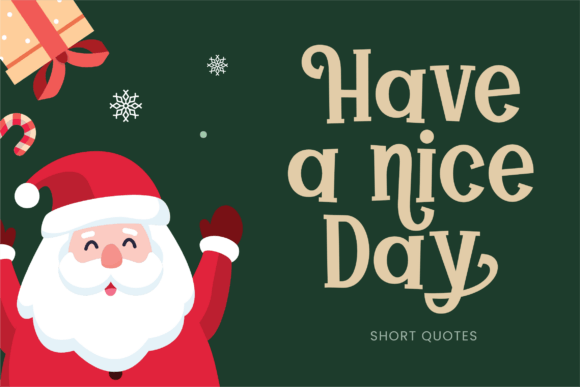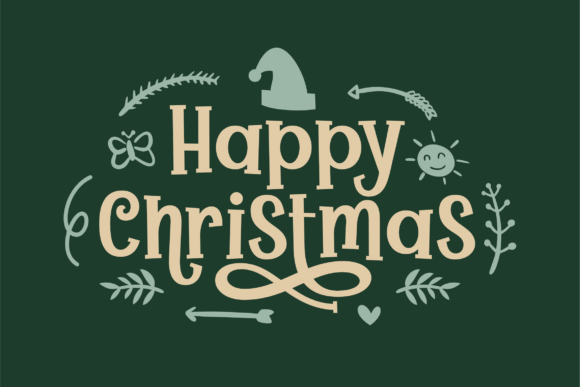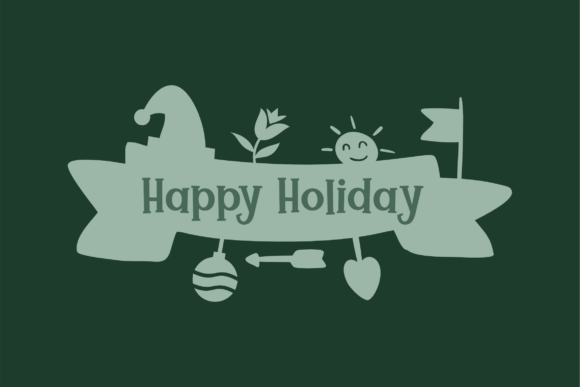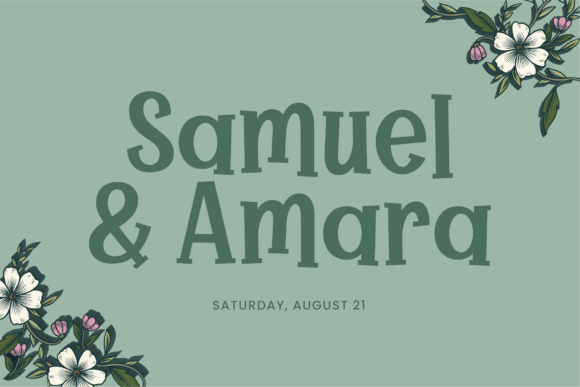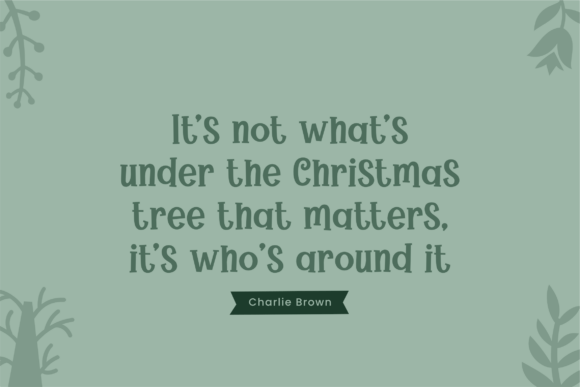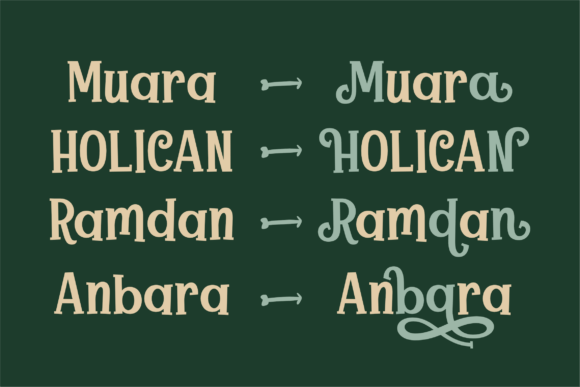
Dreamglow Christmas Font: The Ultimate Holiday Display Typeface
The holiday season is upon us, and with it comes the need for festive and fun designs that capture the magic of Christmas. If you’re a designer or crafter looking for the perfect font to bring your holiday projects to life, look no further than Dreamglow Christmas. This whimsical and festive display typeface is designed to add a touch of warmth and joy to your Christmas-themed designs, making it the perfect addition to your holiday toolkit.
A Festive Font with a Retro Charm
Dreamglow Christmas is a playful and charming font that radiates warmth and joy. Its soft serifs and playful curves give it a retro charm that’s reminiscent of classic holiday designs from years past. The font’s unique character and personality make it perfect for a wide range of Christmas-themed projects, from greeting cards and holiday banners to festive packaging and more.
Perfect for Christmas Projects
Whether you’re designing a holiday greeting card, a festive banner, or a package for a Christmas gift, Dreamglow Christmas is the perfect font for the job. Its cozy, handcrafted feel makes it perfect for adding a personal touch to your designs, and its playful curves and soft serifs give it a fun and festive vibe that’s sure to get you in the holiday spirit.
Delightful Dingbats to Complete Your Design
One of the best things about Dreamglow Christmas is the inclusion of delightful dingbats to complete your creative vision. These fun and festive icons can be used to add a touch of whimsy and personality to your designs, making them truly one-of-a-kind. From snowflakes and holly leaves to Christmas trees and stockings, the dingbats included with Dreamglow Christmas have everything you need to create a festive and fun design.
Key Features of Dreamglow Christmas
- Whimsical and festive design: Dreamglow Christmas is a playful and charming font that’s perfect for adding a touch of warmth and joy to your holiday designs.
- Soft serifs and playful curves: The font’s unique character and personality make it perfect for a wide range of Christmas-themed projects.
- Retro charm: Dreamglow Christmas has a retro charm that’s reminiscent of classic holiday designs from years past.
- Delightful dingbats: The font includes a range of fun and festive icons to complete your creative vision.
- Cozy, handcrafted feel: Dreamglow Christmas has a cozy, handcrafted feel that’s perfect for adding a personal touch to your designs.
Tips for Using Dreamglow Christmas
Here are a few tips for using Dreamglow Christmas in your holiday designs:
- Use it for headlines and titles: Dreamglow Christmas is perfect for headlines and titles, where its playful curves and soft serifs can really shine.
- Add a personal touch: Use Dreamglow Christmas to add a personal touch to your designs, whether it’s a holiday greeting card or a festive banner.
- Experiment with colors and textures: Don’t be afraid to experiment with different colors and textures to really make your design pop.
- Pair it with other fonts: Dreamglow Christmas can be paired with other fonts to create a unique and interesting design.
Dreamglow Christmas is the ultimate holiday display typeface for designers and crafters. Its whimsical and festive design, soft serifs, and playful curves make it perfect for adding a touch of warmth and joy to your Christmas-themed projects. With its delightful dingbats and cozy, handcrafted feel, Dreamglow Christmas is sure to be the glowing highlight of your holiday designs. So why wait? Download Dreamglow Christmas today and start creating your own festive and fun holiday designs!